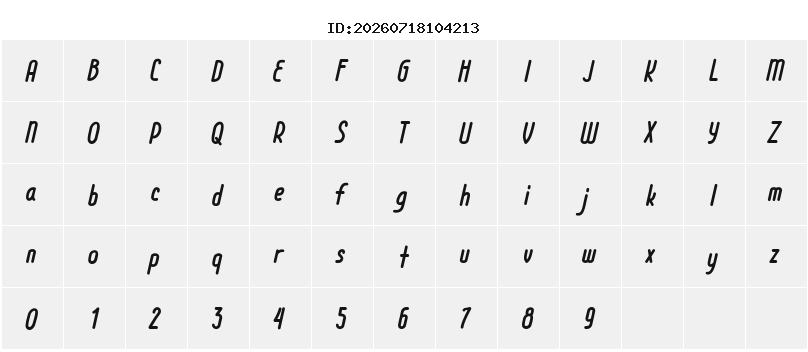
• Font Name: Cell 63
• Designer: Ryland Sanders
About Cell 63.ttf
Cell 63.ttf is a modern, elegant sans-serif font designed for ultimate readability and visual harmony. Perfect for branding, headlines, web design, and print materials.